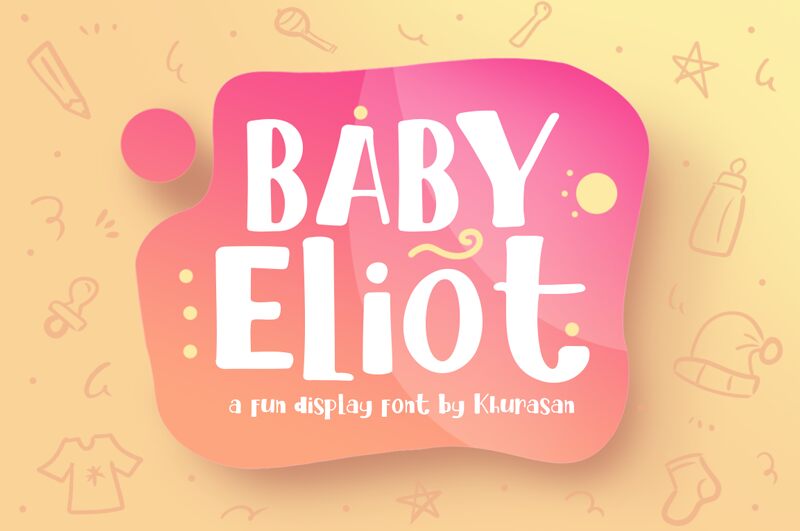
Baby Eliot
Baby Eliot, a whimsical and captivating display font by renowned designer Khurasan. Its bold and playful comic style breathes life into any project, making it perfect for children's books, nursery rhymes, and educational materials. The charming curves and vibrant strokes of Baby Eliot add an element of fun to invitations, greeting cards, and party decorations. This versatile font type also suits branding projects seeking a youthful and energetic vibe. Let Baby Eliot's boldness make your designs stand out with its unique charm and joyous spirit.